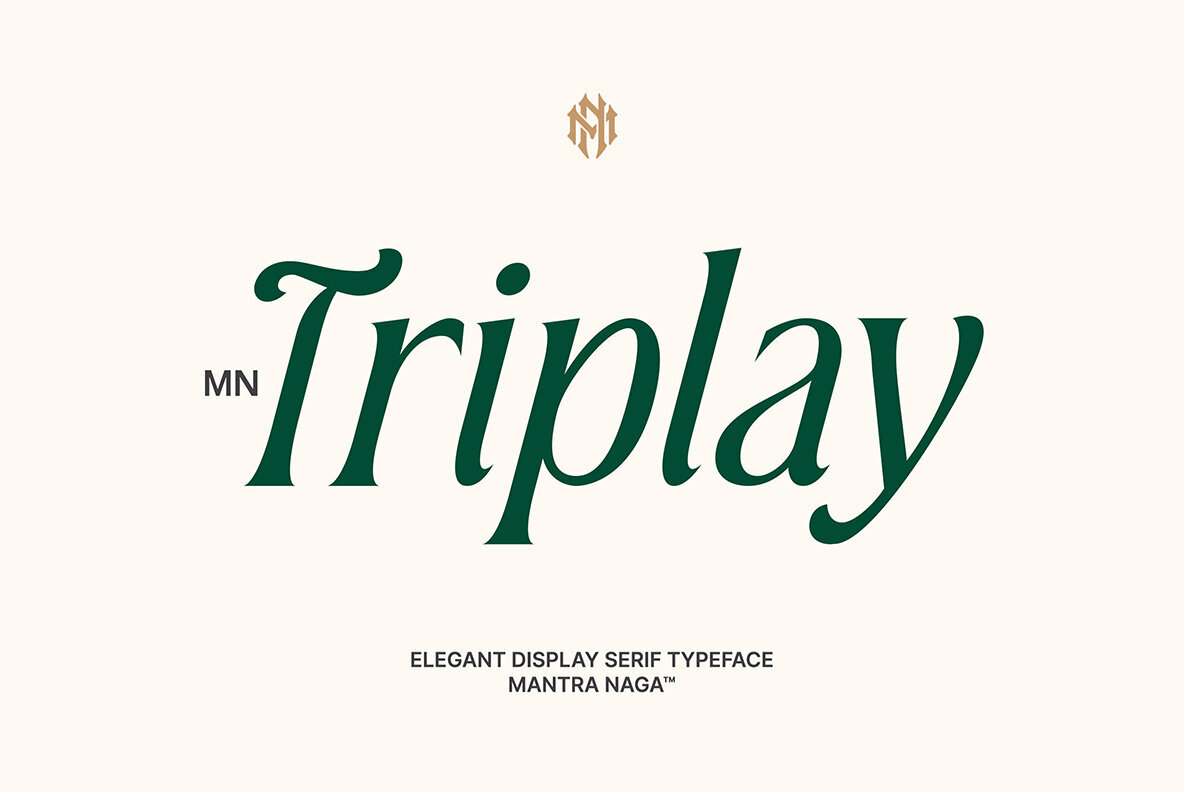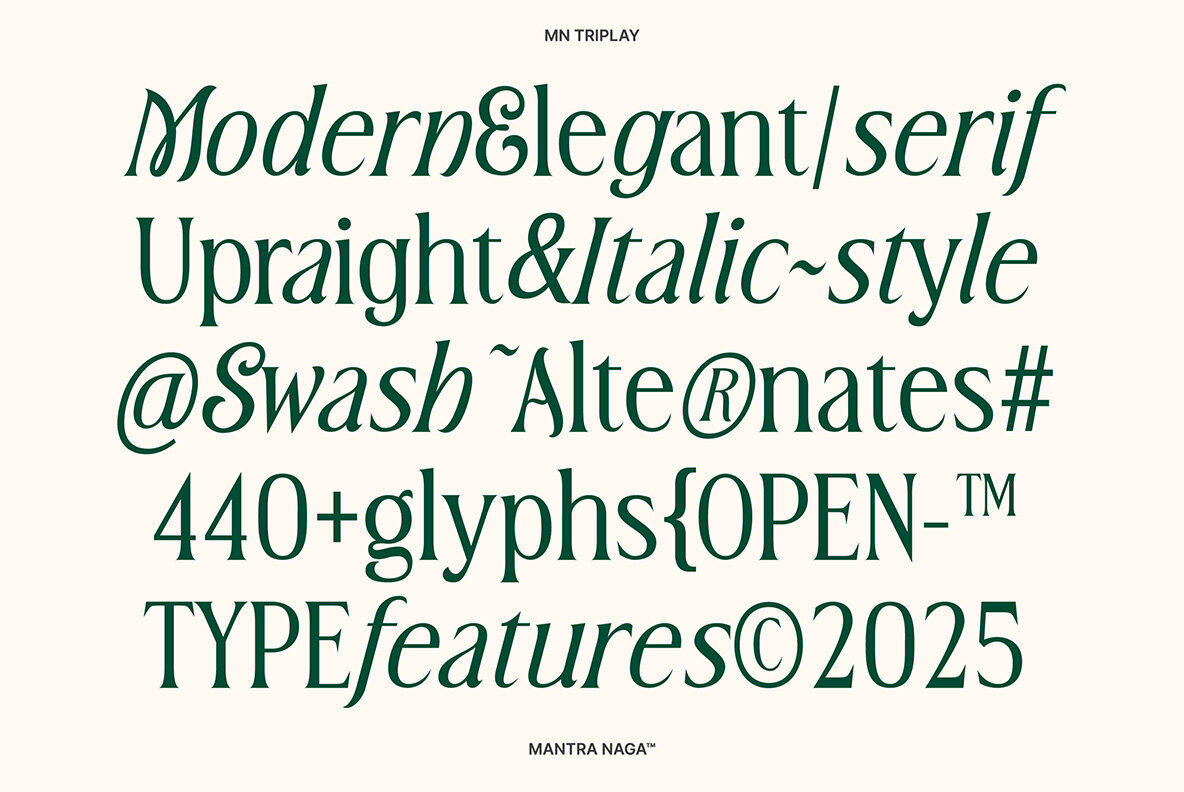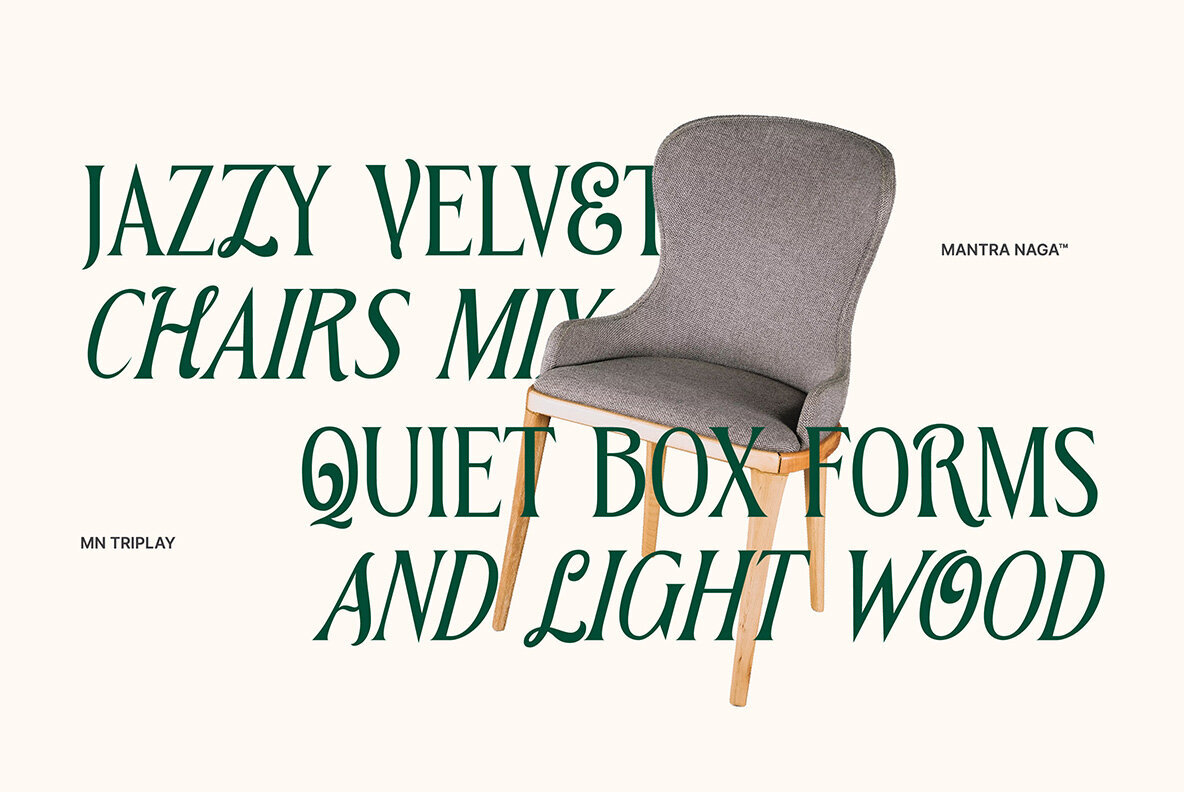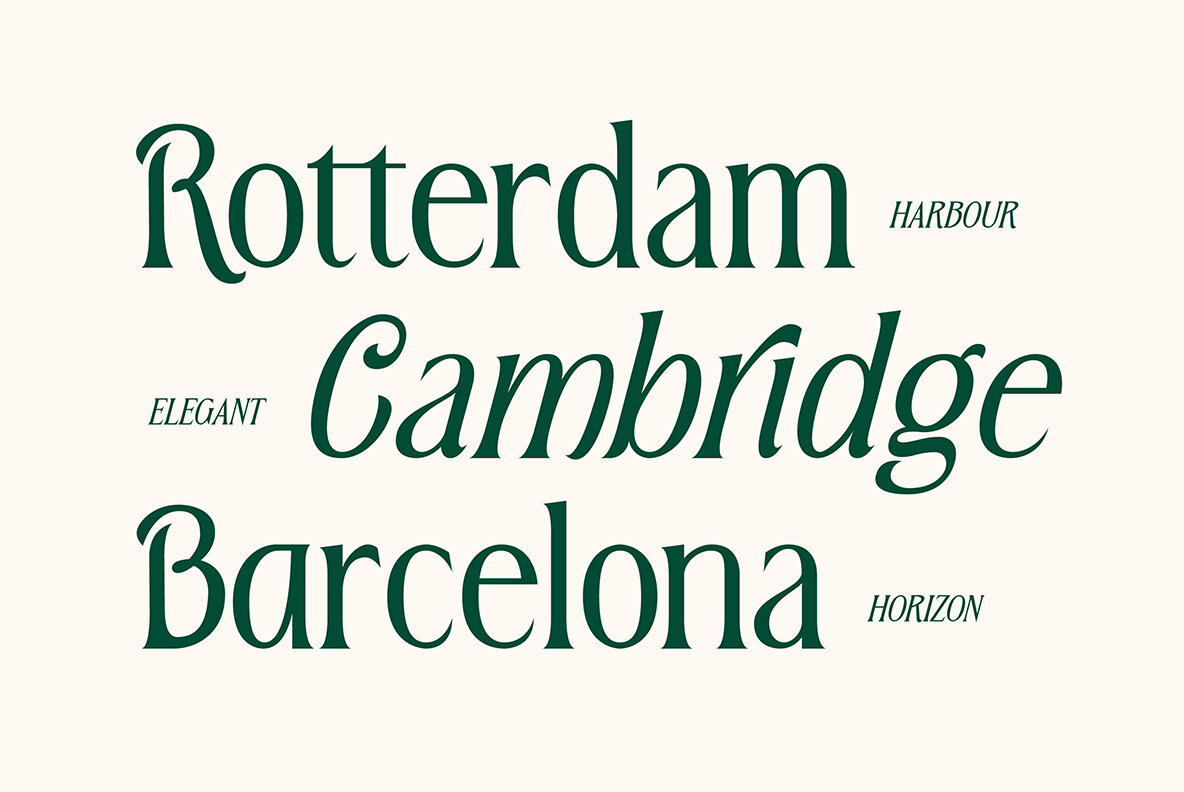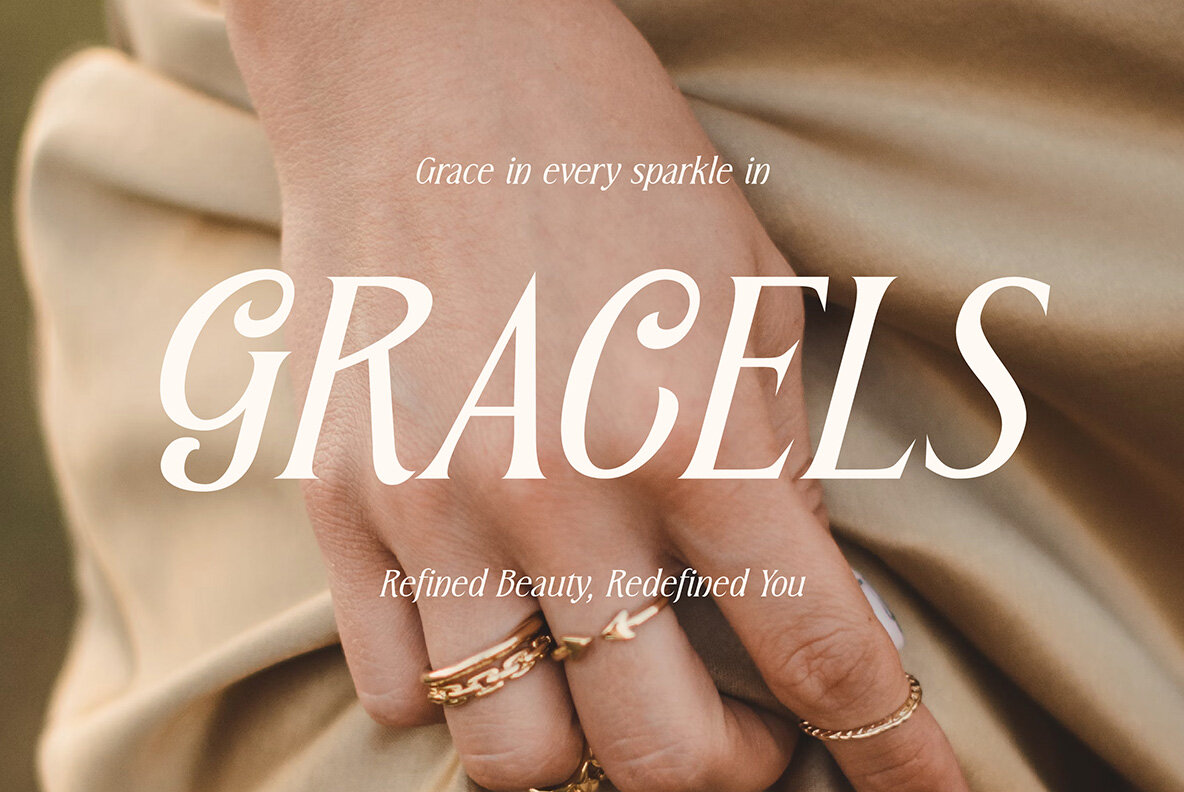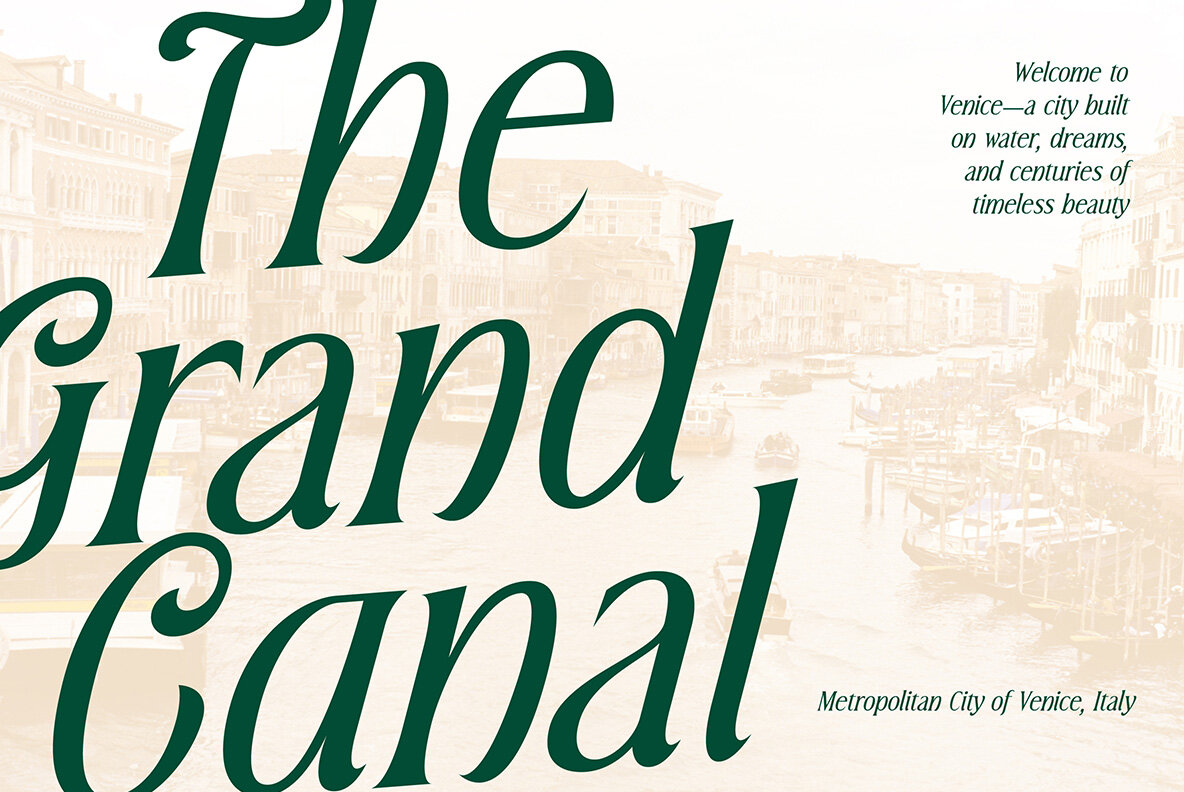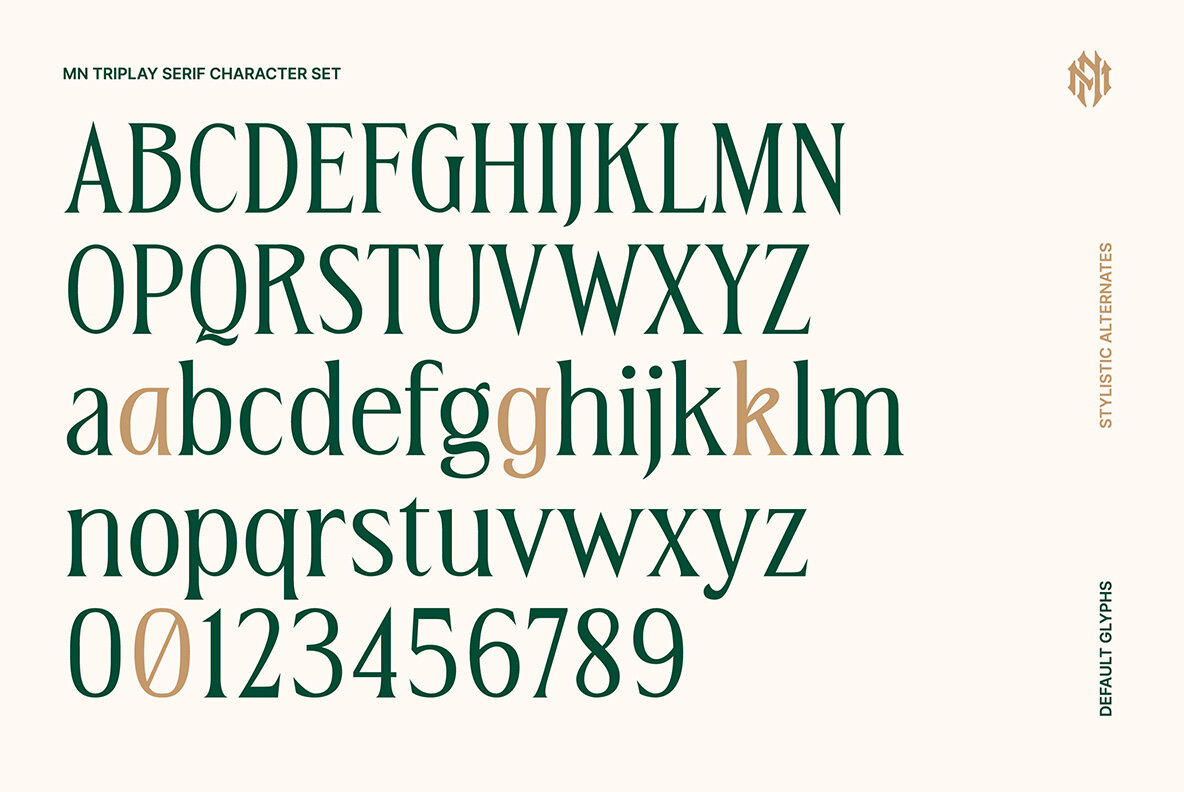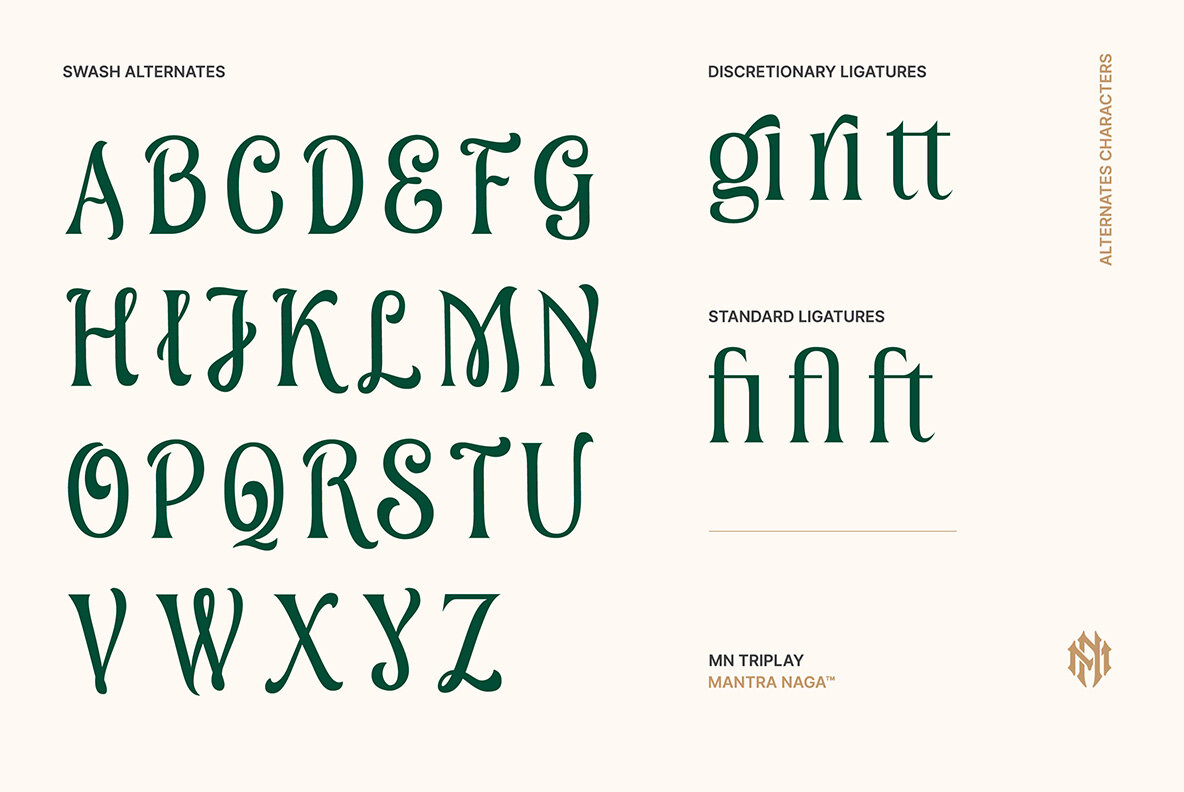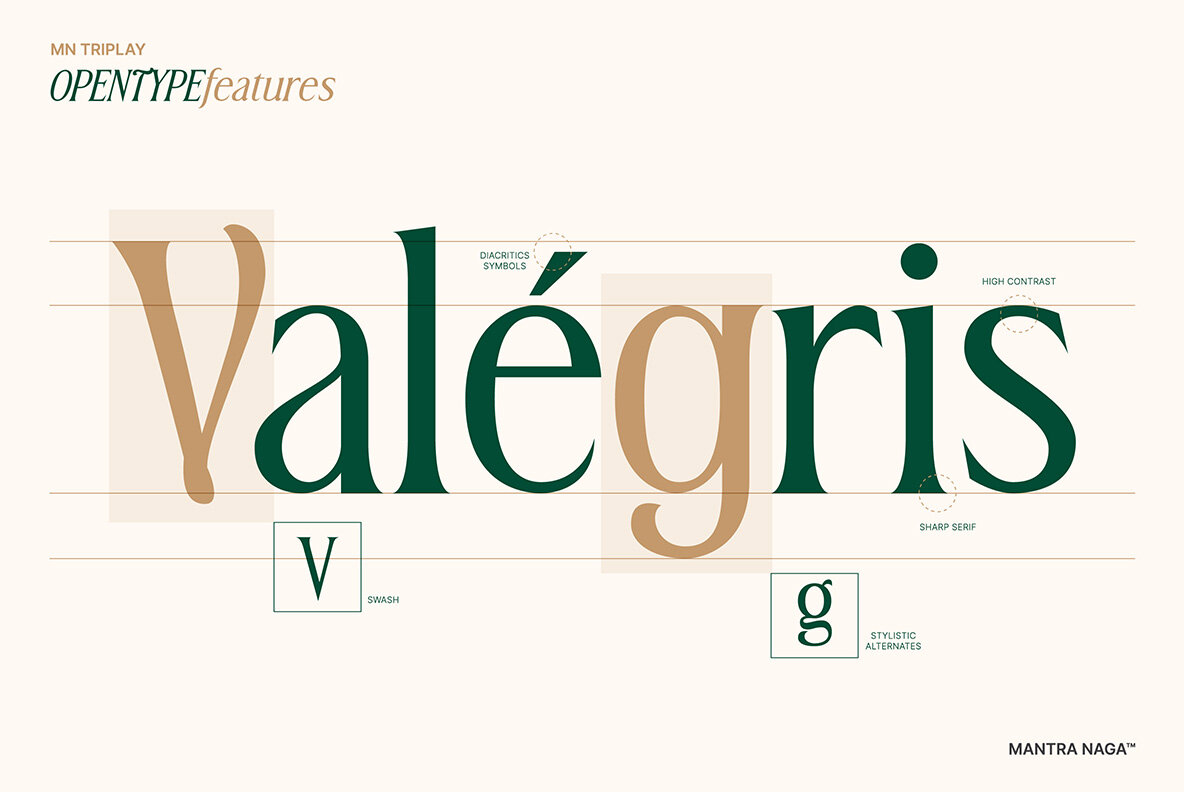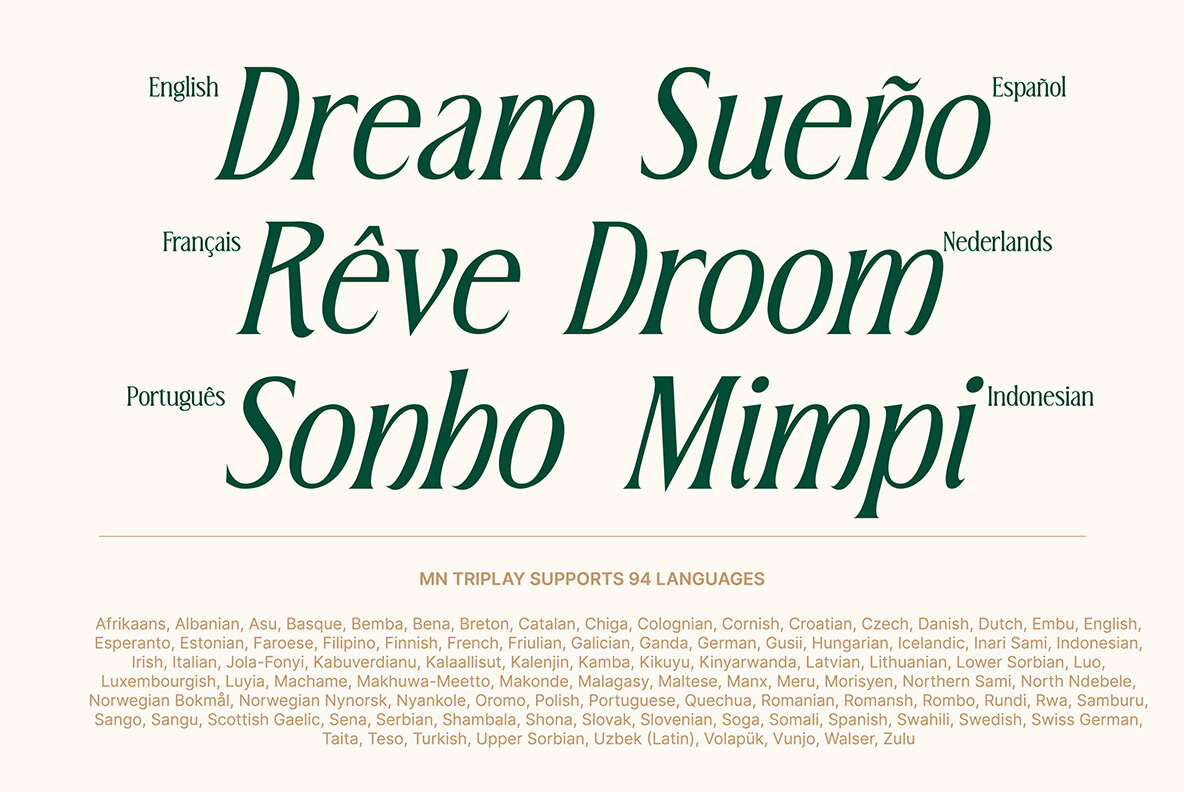
MN Triplay Font
MN Triplay emerges as a modern serif display font, elegantly characterized by its unique alternative uppercase characters. These uppercase letters combine a script-like flair with the traditional serif structure, offering a stylish and distinctive tone. If you have explored the Mantova font, you'll notice MN Triplay draws inspiration from similar concepts, yet elevates the design with an expanded glyph set and balanced stroke contrast. This makes the font ideal for various design contexts. MN Triplay presents itself in two styles: Upright (Regular) and Italic. Predominantly crafted for display applications such as headlines, branding, and logos, it also adapts well to editorial layouts and long-form text when given appropriate typographic treatment.MN Triplay: Modern Elegance in Serif Form